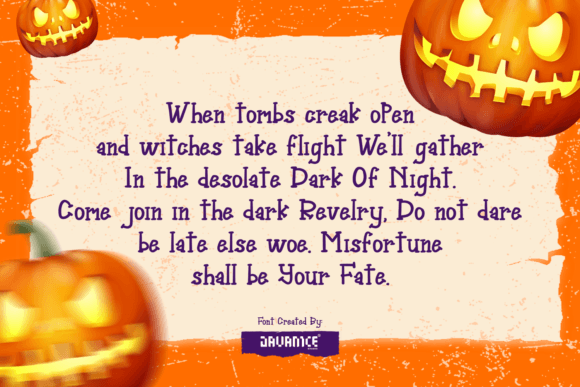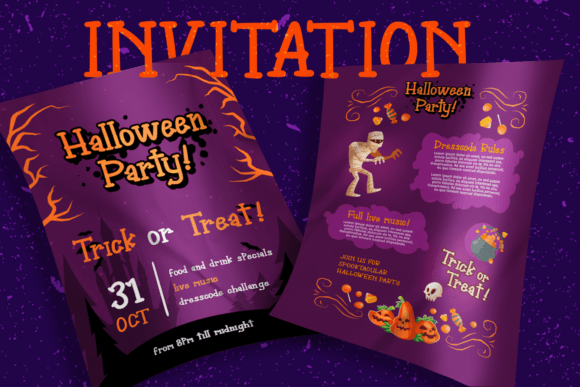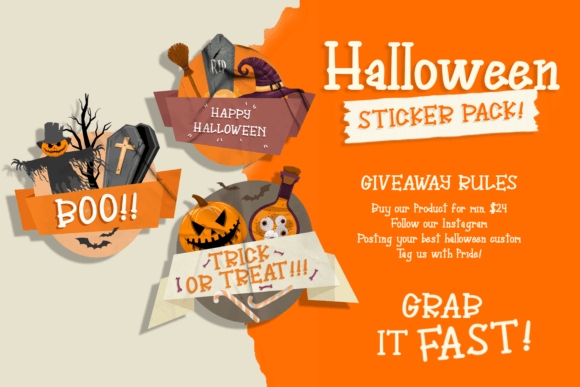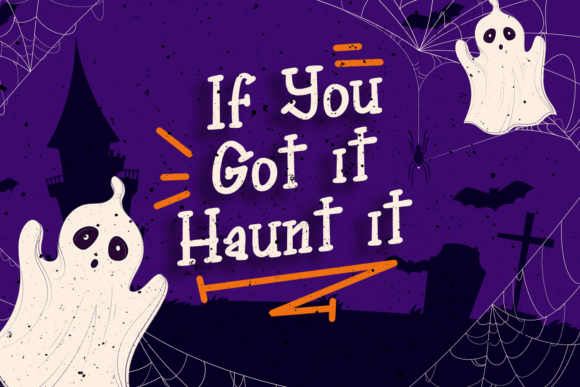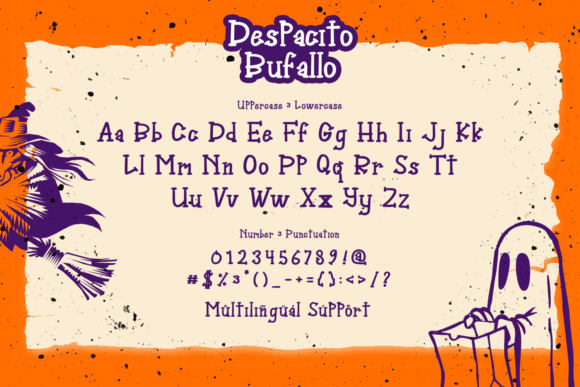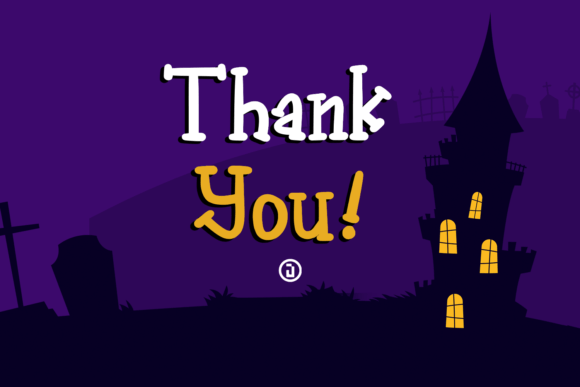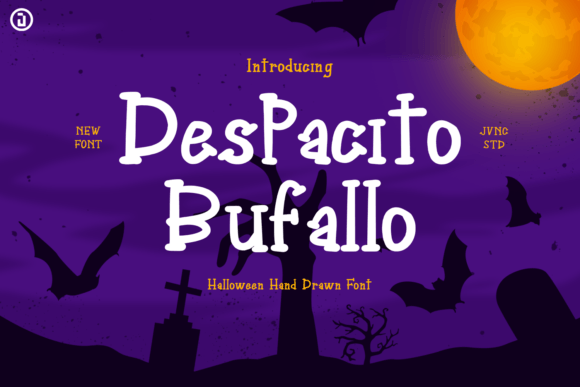
Despacito Bufallo Font: The Spooky-Perfect Hand-Drawn Font for Designers and Crafters
As the spookiest season of the year approaches, designers and crafters are on the lookout for the perfect font to add a touch of eeriness to their projects. Look no further than Despacito Bufallo, a hand-drawn font that’s perfect for all your Halloween-themed designs. In this article, we’ll dive into the world of Despacito Bufallo and explore its features, uses, and benefits for designers and crafters.
What is Despacito Bufallo?
Despacito Bufallo is a unique, hand-drawn font that’s specifically designed for Halloween-themed projects. Its name “Despacito” means “slowly” in Spanish, while “Bufallo” means “buffalo.” This font is a creative combination of spooky and playful elements, making it perfect for a wide range of design projects.
Features of Despacito Bufallo
Despacito Bufallo boasts a range of features that make it an ideal choice for designers and crafters. Some of its key features include:
- Hand-drawn design: Each letter and character is carefully hand-drawn, giving the font a unique, organic feel.
- Halloween-themed: The font is specifically designed for Halloween-themed projects, making it perfect for the spookiest season of the year.
- Versatile: Despacito Bufallo can be used for a wide range of design projects, from branding and advertising to crafting and DIY projects.
- Easy to read: Despite its unique design, Despacito Bufallo is easy to read, making it perfect for body text and headlines.
Uses of Despacito Bufallo
Despacito Bufallo is perfect for a wide range of design projects, including:
- Branding projects: Use Despacito Bufallo to create spooky and memorable brand identities for your clients or business.
- Apparel: Design Halloween-themed t-shirts, hoodies, and other apparel with Despacito Bufallo.
- Labels and packaging: Add a touch of eeriness to your product labels and packaging with Despacito Bufallo.
- Magazines and books: Use Despacito Bufallo to create spooky and engaging headlines and titles for your Halloween-themed publications.
- Greeting and wedding cards: Add a touch of whimsy and spookiness to your greeting and wedding cards with Despacito Bufallo.
- Fashion and makeup: Use Despacito Bufallo to create spooky and stylish fashion and makeup designs.
- Stationery: Design spooky and fun stationery, such as notebooks, journals, and stickers, with Despacito Bufallo.
- Advertising: Use Despacito Bufallo to create eye-catching and spooky advertisements for your clients or business.
Benefits of Using Despacito Bufallo
There are many benefits to using Despacito Bufallo for your design projects. Some of the key benefits include:
- Unique and creative: Despacito Bufallo is a one-of-a-kind font that will add a touch of creativity and uniqueness to your designs.